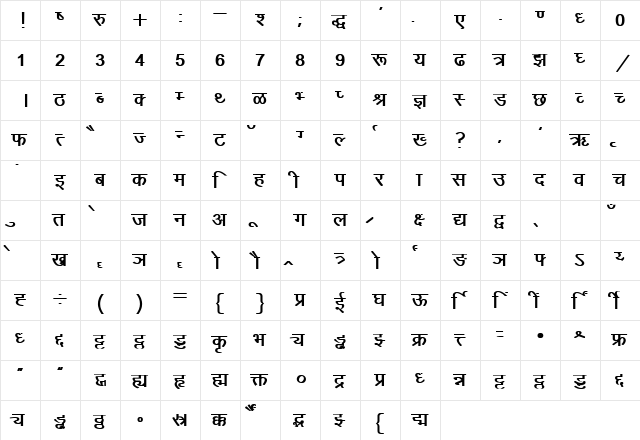
DevLys 010 Bold Font Preview
DevLys 010 Bold
Design Context for DevLys 010 Typeface
DevLys 010 is a composed and adaptable typeface that performs quietly and consistently across a wide range of design contexts. Its bold stroke weight gives it real presence on the page.
Pro Tip: Use DevLys 010 in both headline and body roles to test its range before committing to a single application.